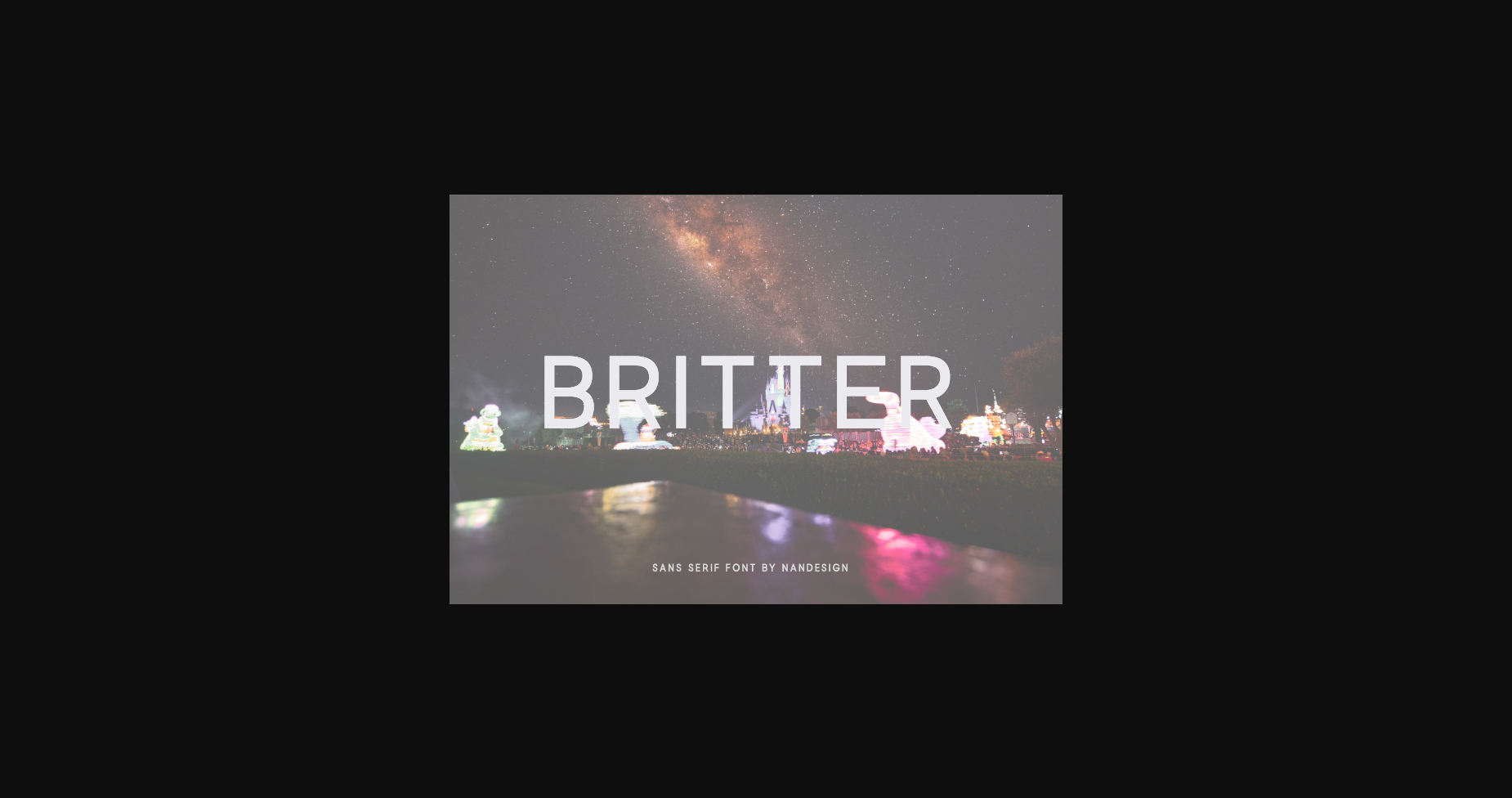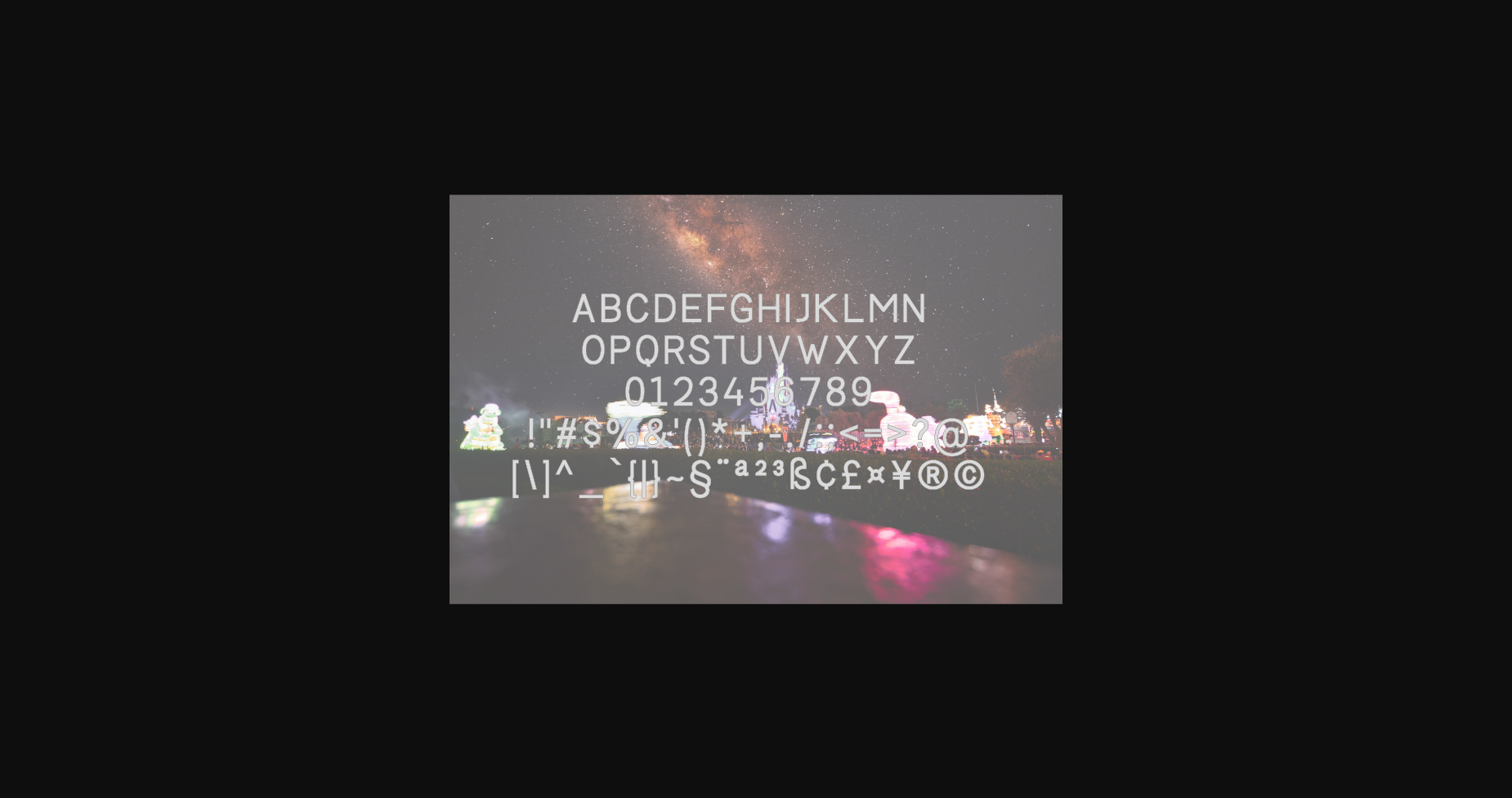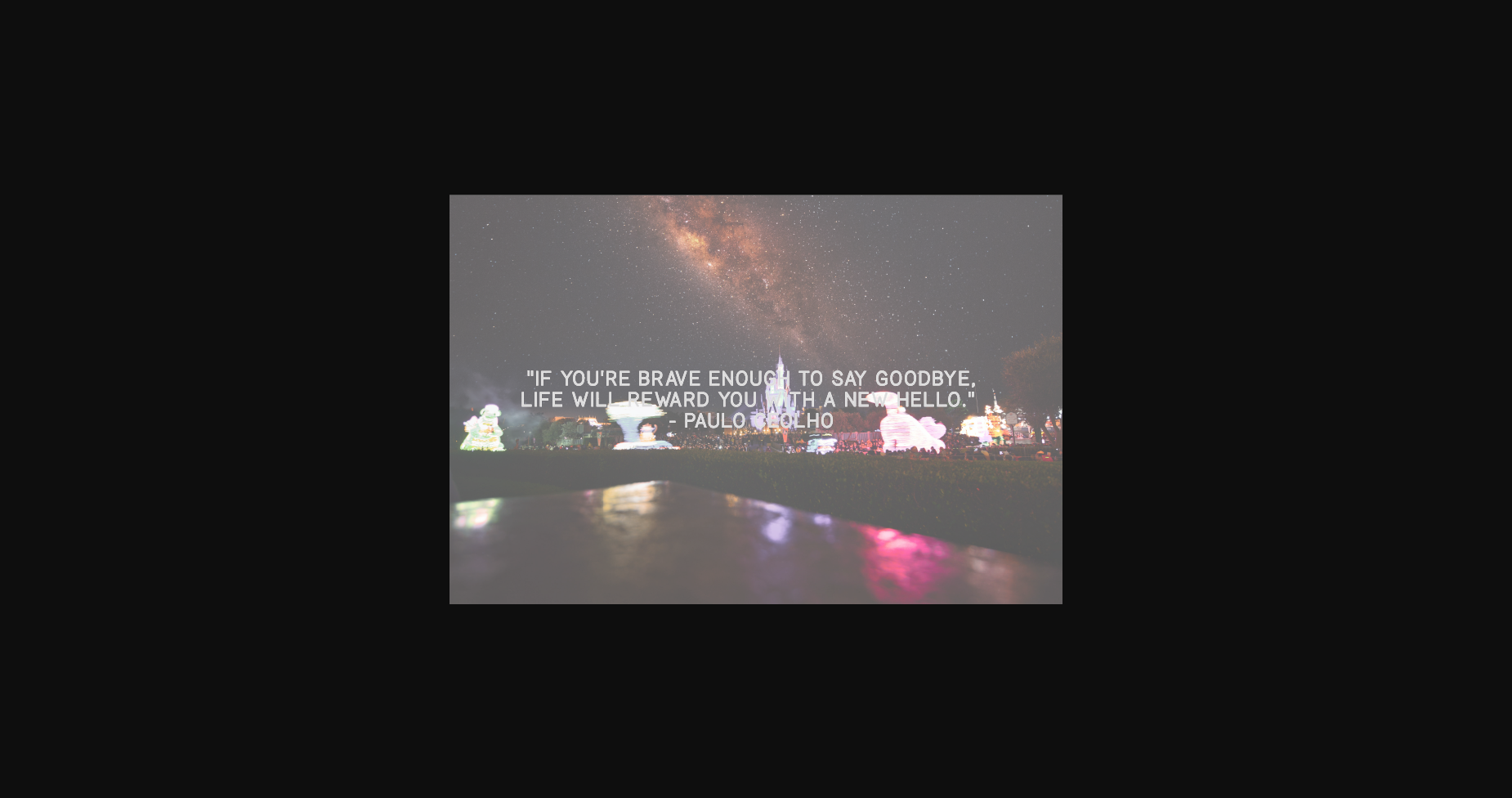
Britter Font
About Britter Font
Britter is a simple and neat sans serif font. It can easily be matched to an incredibly large set of projects, so add it to your creative ideas and notice how it makes them stand out!